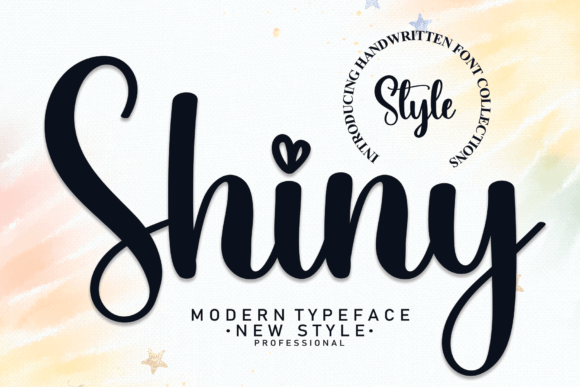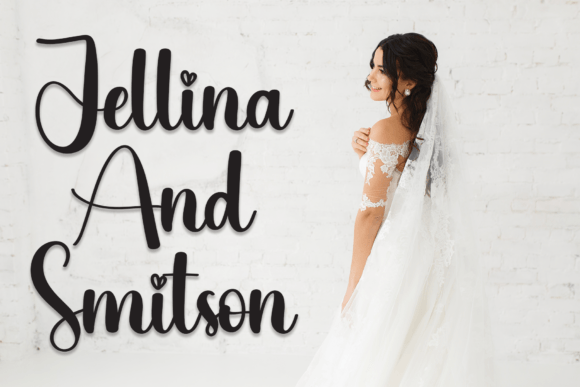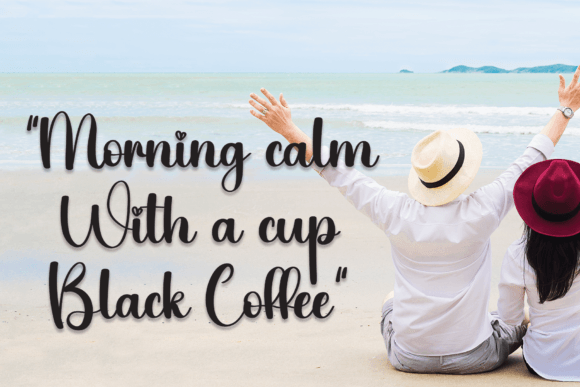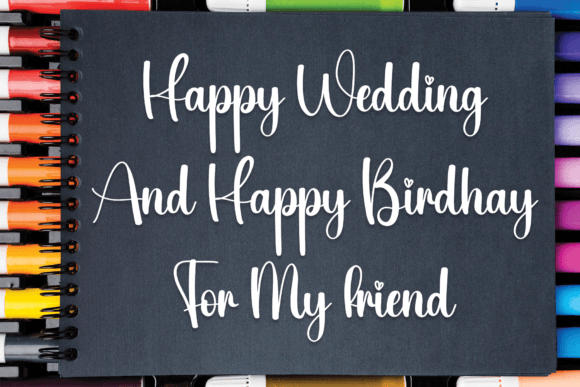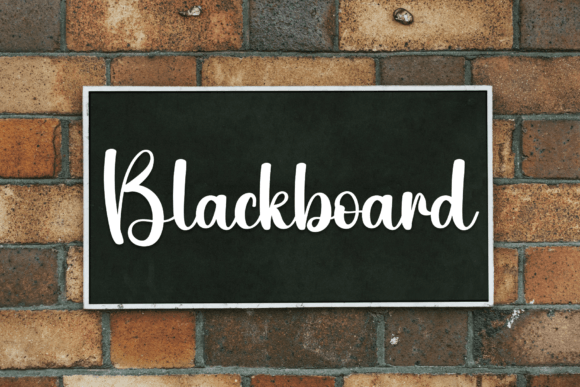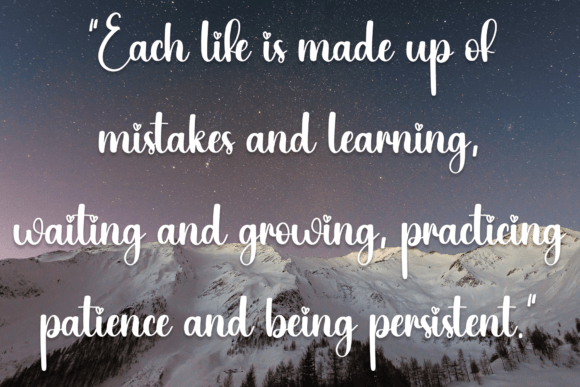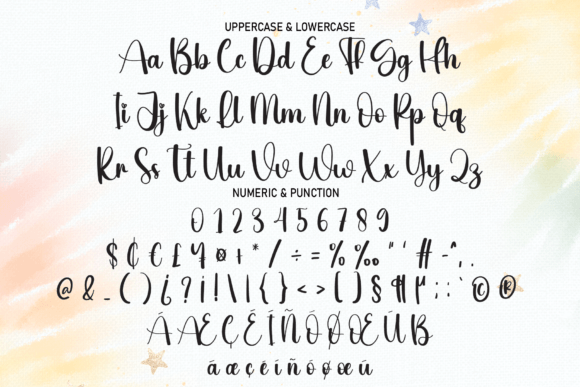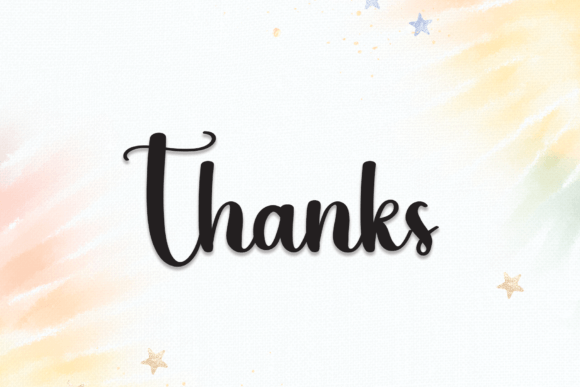
Shiny Font
About Shiny Font
Shiny font is a charming and elegant handwritten typeface designed to add a sophisticated touch to your creative projects. It brings a refined and stylish flair to any design, making it perfect for wedding invitations, thank you cards, quotes, greeting cards, logos, business cards, and more. With its delicate curves and smooth lines, Shiny font effortlessly enhances the visual appeal of your work.
Elegant Handwritten Style
This font captures the beauty of natural handwriting with an elegant twist. Its refined strokes and graceful flow make every letter look polished and inviting. Shinyfont balances classic script influences with modern design trends, creating a versatile typeface suitable for various design needs.
Ideal for Special Occasions
Shinyfont is especially well-suited for special occasions like weddings and celebrations. It adds warmth and personality to invitations and greeting cards, making your messages feel heartfelt and unique. Beyond personal use, this font also works well for branding projects, business cards, and logos that require a handwritten, elegant aesthetic.
Why Choose Shiny Font?
By choosing Shinyfont, you add a timeless and elegant touch to your projects. Its versatility and charm make it a valuable tool for designers looking to create memorable, beautiful designs. Whether for personal or professional use, Shinyfont ensures your creations stand out with style and grace.